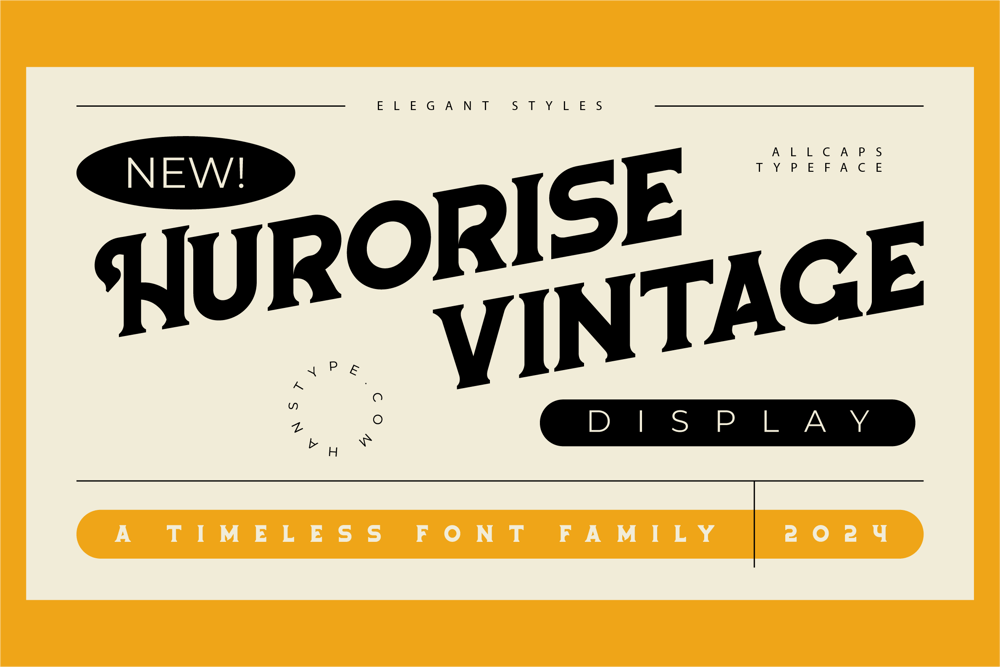
Hurorise
Hurorise font
Hurorise Font Family was designed by Agus Prima and published by Valiantbrotha. Hurorise contains 2 styles and family package options. Hurorise is a sophisticated vintage display font that blends timeless elegance with a touch of modern refinement. Inspired by the soft glow of dawn and the classic typography of bygone eras, Aurorise delivers a perfect balance of delicate curves and bold strokes.